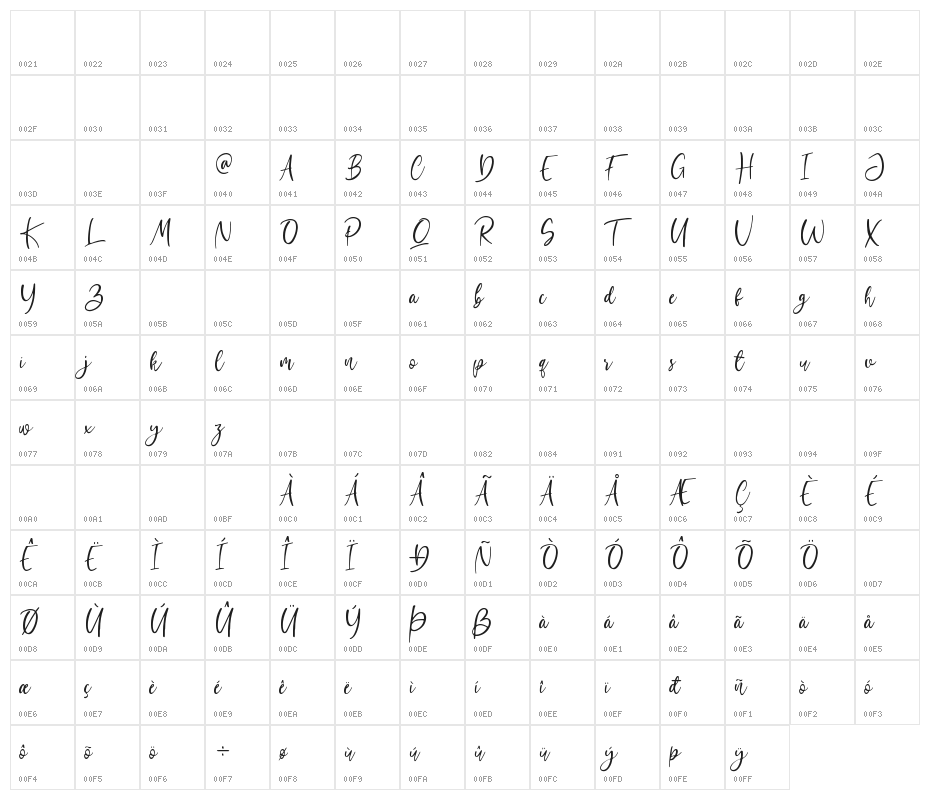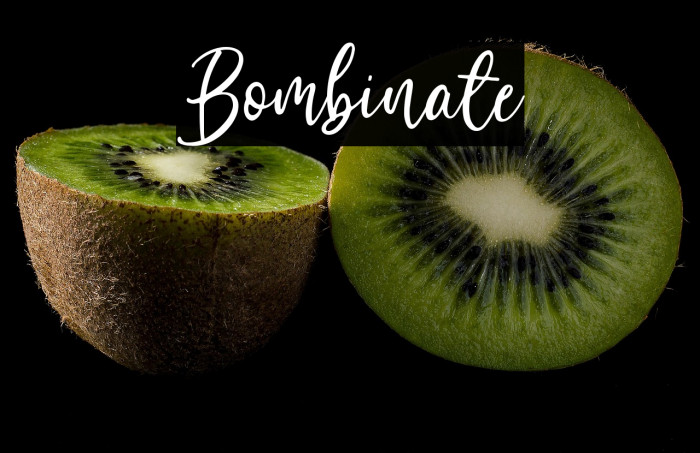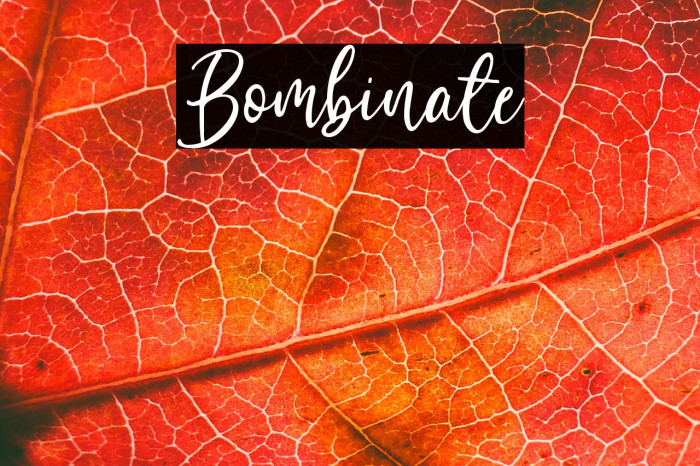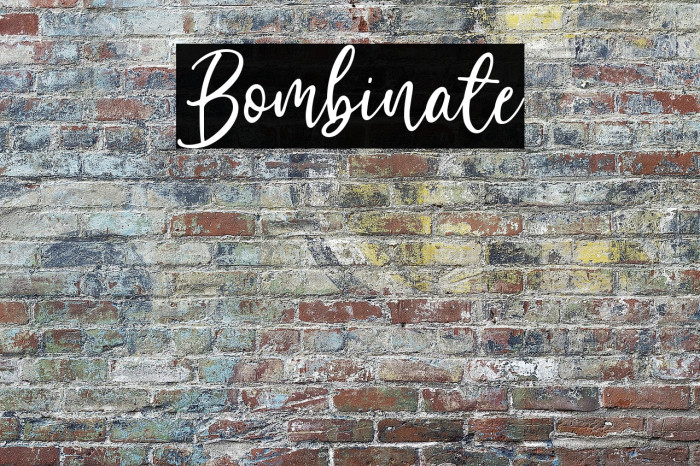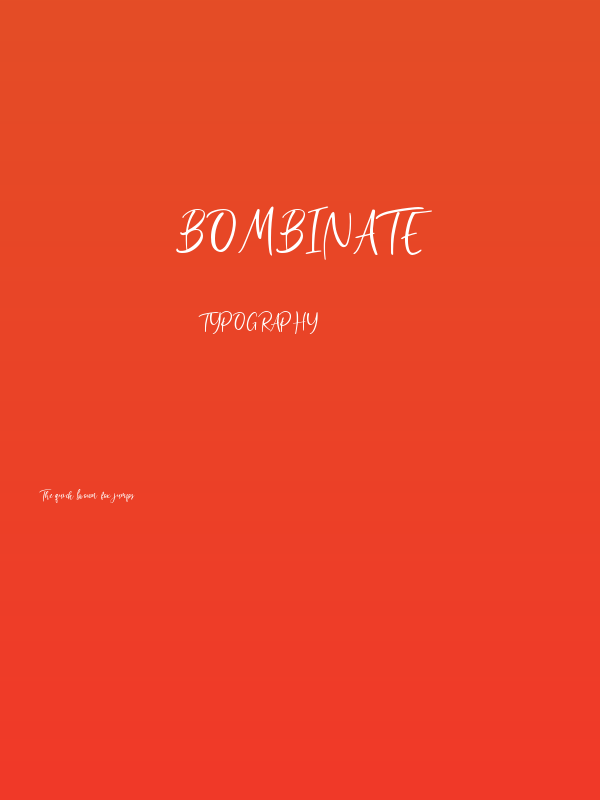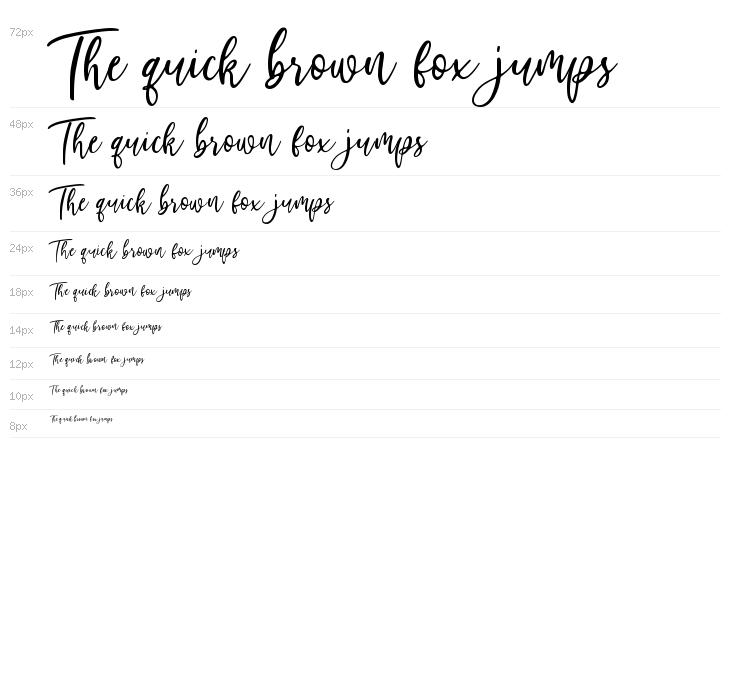
Bombinate Font
Bombinate Description
This font features a flowing, cursive style with elegant curves and loops, giving it a handwritten appearance. The uppercase letters are tall and slightly narrow, with distinctive flourishes that add a touch of sophistication. The lowercase letters maintain a consistent style, with smooth connections between characters, enhancing the script's fluidity. The font's overall appearance is both graceful and dynamic, making it suitable for creative and artistic projects. The characters are well-balanced, with a moderate contrast in stroke thickness that adds to its readability while maintaining an artistic flair.
A flowing, cursive font with elegant curves and a handwritten style from Uncategorized fonts.
- Proposed Projects: Ideal for wedding invitations, greeting cards, branding, and artistic projects.
- Use Case: Logos, Headlines, Invitations